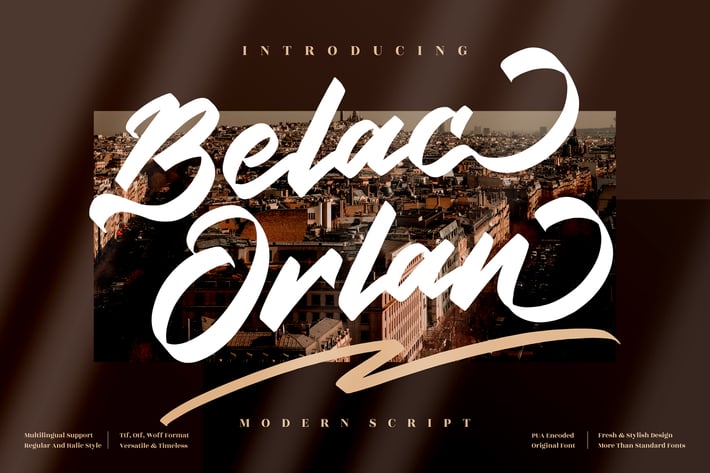
Belac Orlan Modern Brush Font
Belac Orlan is a bold and expressive modern brush font that captures energy and confidence in every stroke. Designed with smooth motion and dynamic curves, it delivers a natural hand-painted style that feels both powerful and sophisticated. Whether you’re creating an impactful headline or a stylish logo, Belac Orlan brings a touch of artistry and modern flair.
Modern brush script with fluid and energetic strokes
Regular and Italic styles included
Perfect balance between bold expression and elegant detail
Command attention with every letter — Belac Orlan transforms bold strokes into modern sophistication.